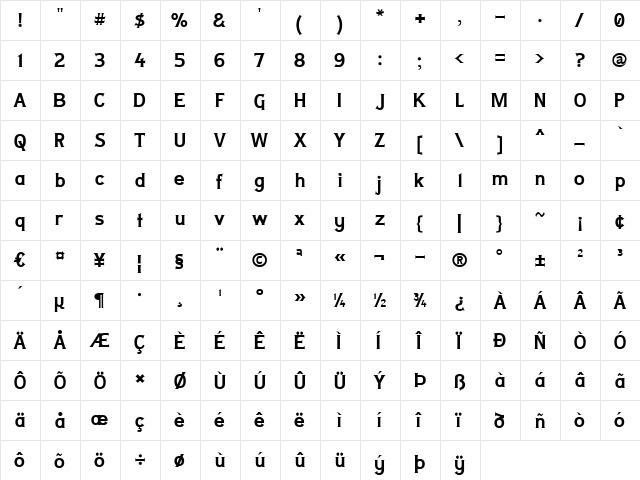
Lady Copra Alternate Regular
| Designer | Graham Meade |
Design Context for Lady Copra Alternate Typeface
Lady Copra Alternate takes a measured approach to typography — its balanced proportions and neutral character make it a reliable workhorse for both digital and print work.